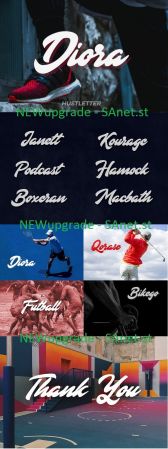
Diora is a fancy handlettering typeface with a smooth, sporty style and dramatic movement. It’s allowing you to create beautiful hand-made typography in an instant. Diora is suitable for headlines, logotypes, branding, letterheads, posters, apparel design, product packaging, and anything that need a handlettering taste.